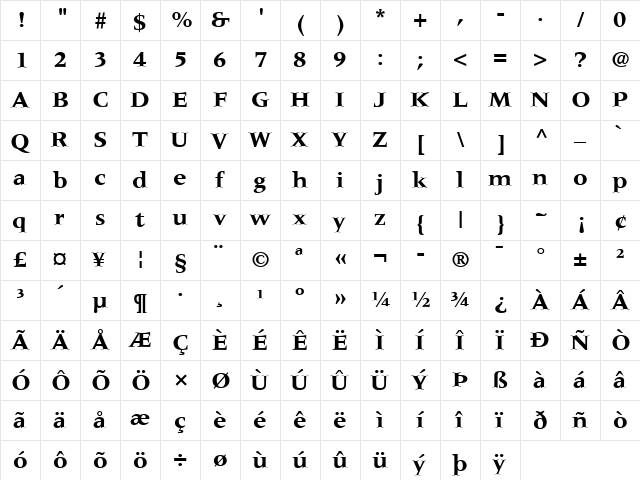
Meridien LT Roman Bold
Design Context for Meridien LT Roman Typeface
Meridien LT Roman is a composed and adaptable typeface that performs quietly and consistently across a wide range of design contexts. Its bold stroke weight gives it real presence on the page.